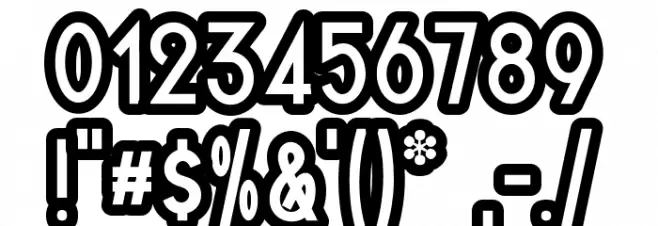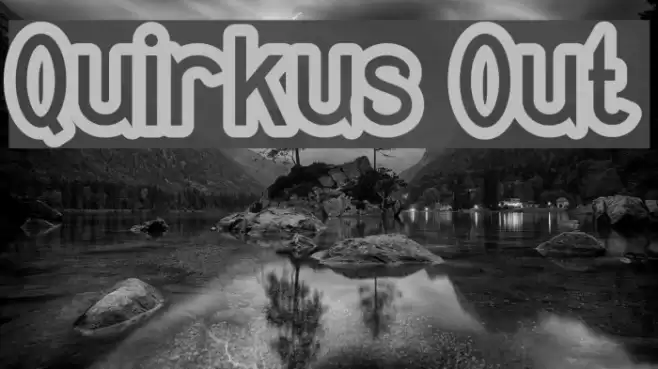
Quirkus Out Font
Quirkus Out Description
This font features bold, rounded characters with a thick outline, giving it a playful and eye-catching appearance. The uppercase and lowercase letters maintain a consistent style, with smooth curves and a uniform thickness that enhances readability. The numerals and special characters are designed to match the overall aesthetic, ensuring a cohesive look across different uses. The font's boldness and unique outline make it ideal for designs that require a strong visual impact, such as posters, headlines, and branding materials.
| Proposed Projects | Ideal for posters, headlines, branding, and any project needing a bold, playful look. |